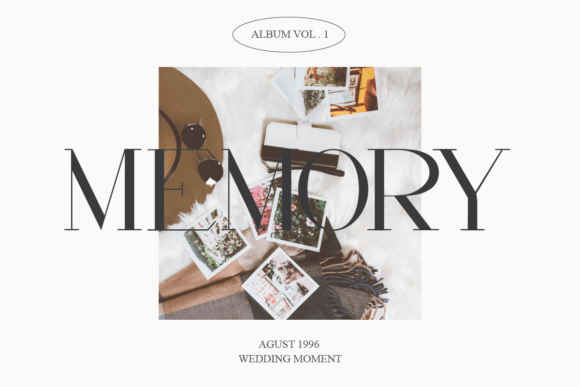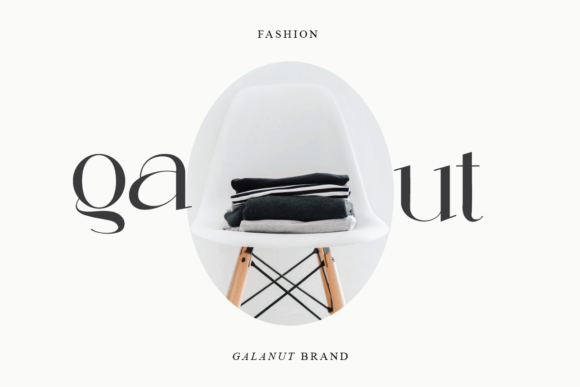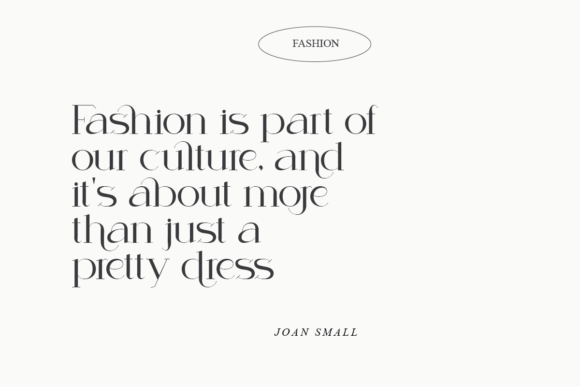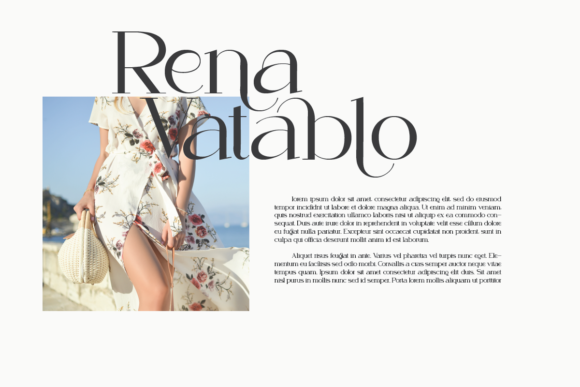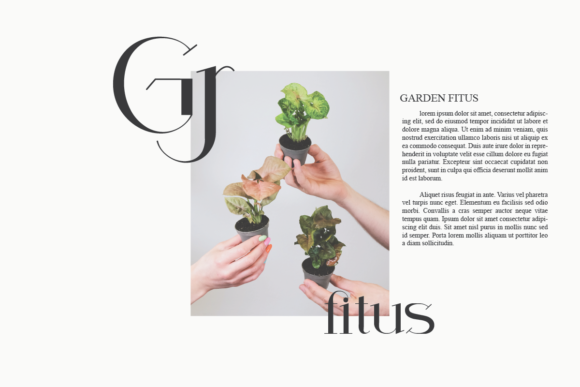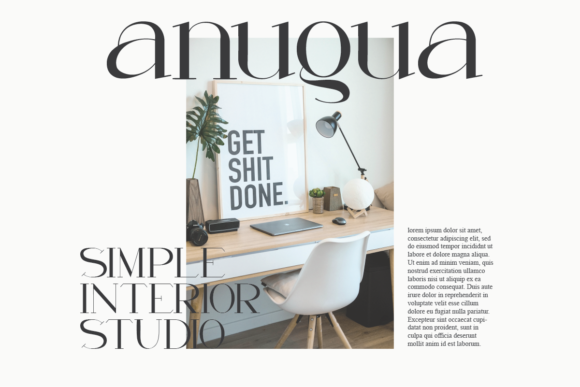
Introduction to Mogiena Font
Mogiena is a stylish and elegant serif font.
It is PUA encoded which means you can access all glyphs and swashes with ease Use this font for your designs and explore its endless possibilities.
Mogiena Font offers exceptional quality and versatility, making it a valuable addition to your design toolkit. Whether you’re creating for personal projects or commercial use, Mogiena Font delivers professional results.